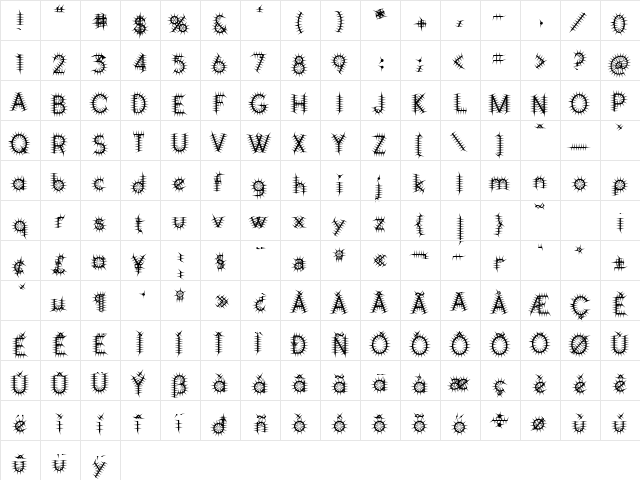
CennerikSpiked Regular
Design Context for CennerikSpiked Typeface
CennerikSpiked is a composed and adaptable typeface that performs quietly and consistently across a wide range of design contexts.